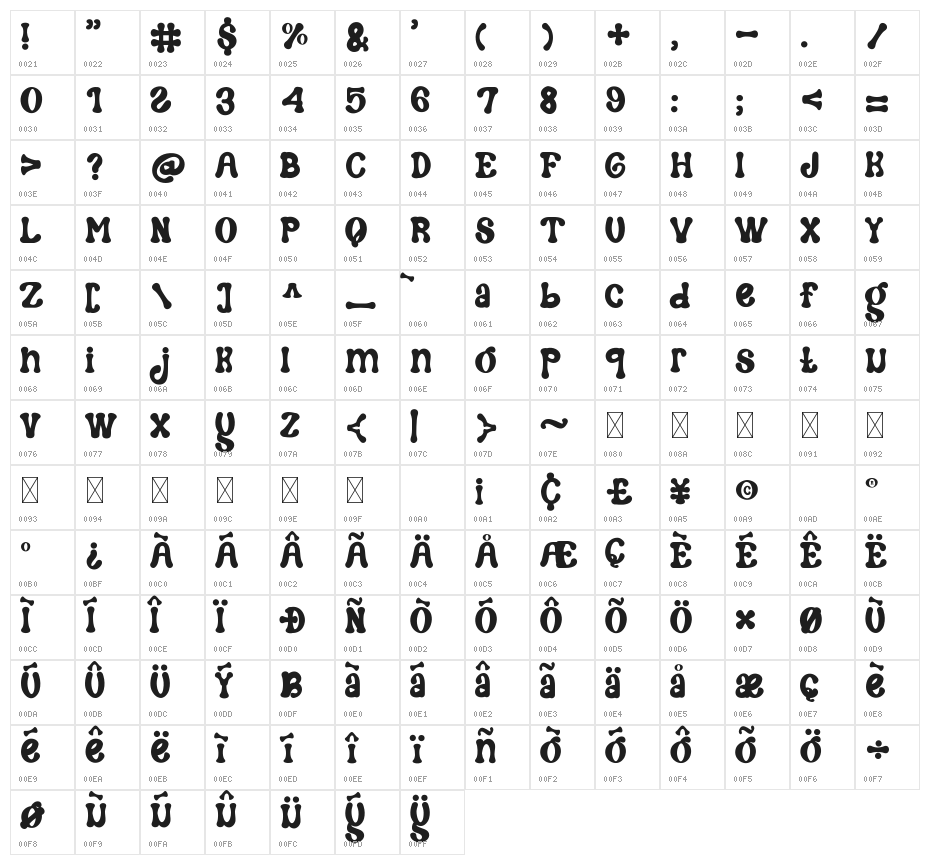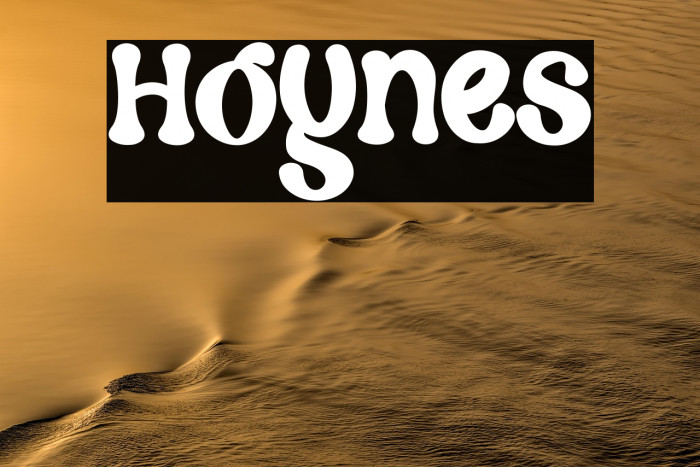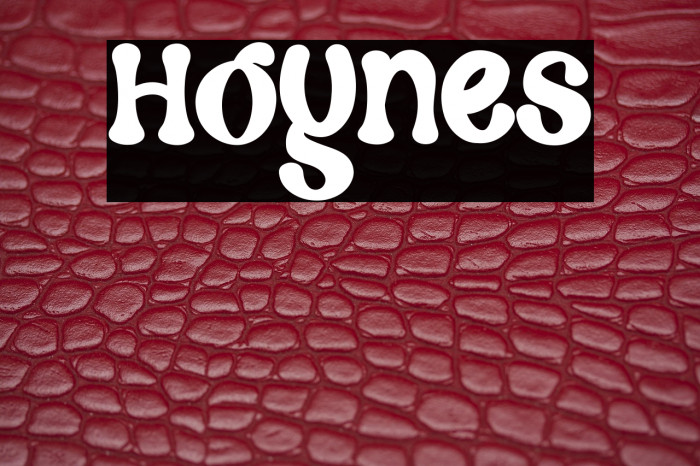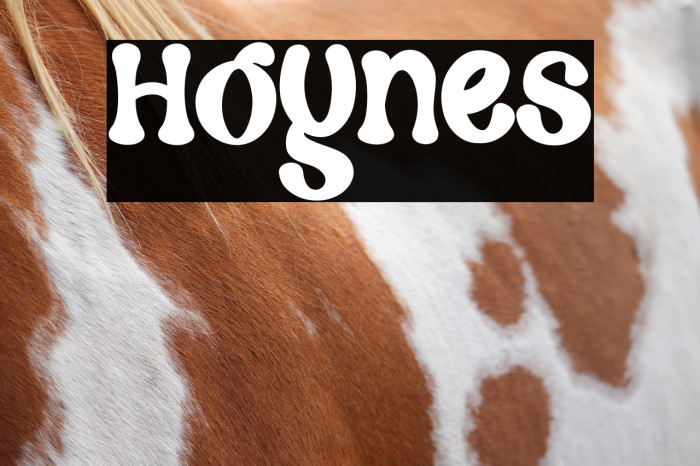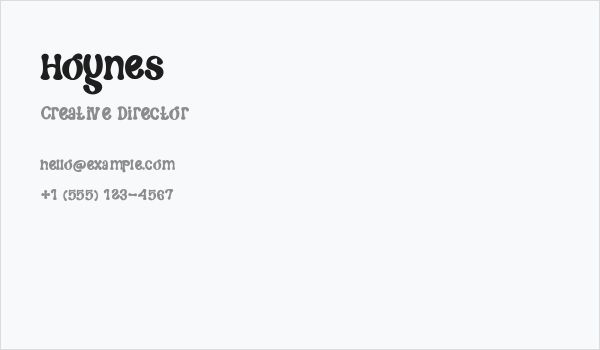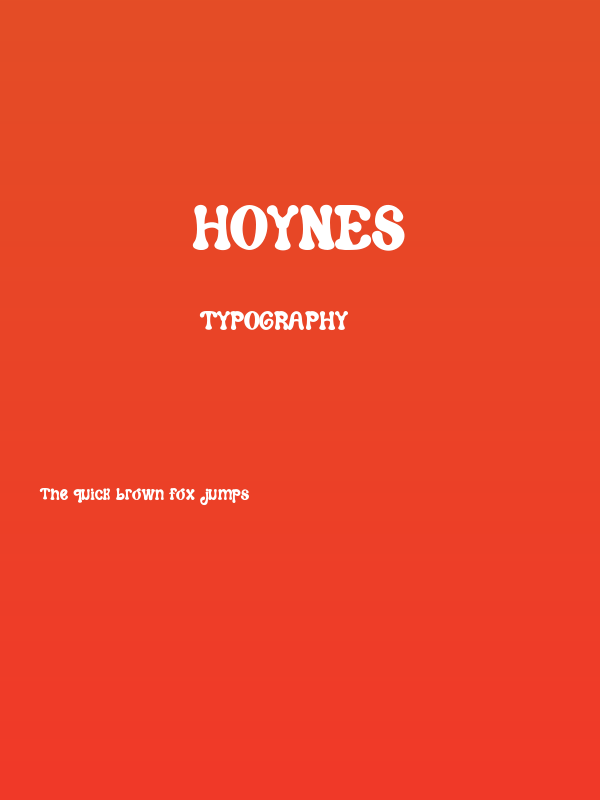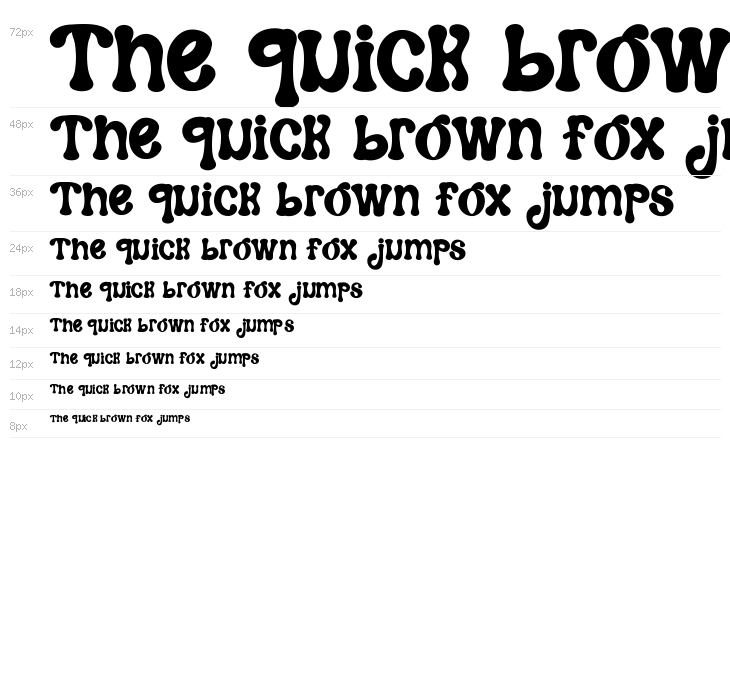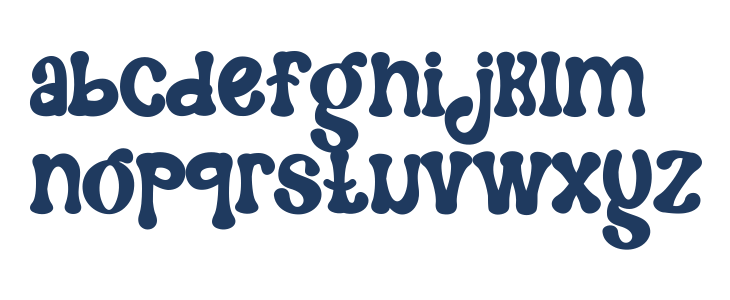
Hoynes Font
Hoynes Description
This font features a bold and playful design with rounded, bubbly characters that exude a sense of fun and whimsy. The letters are thick and have a consistent stroke width, giving them a strong presence on the page. The curves are smooth and exaggerated, adding to the font's lively and energetic feel. The numbers and special characters maintain the same playful style, ensuring a cohesive look across all text elements. This font is ideal for projects that require a touch of humor and creativity.